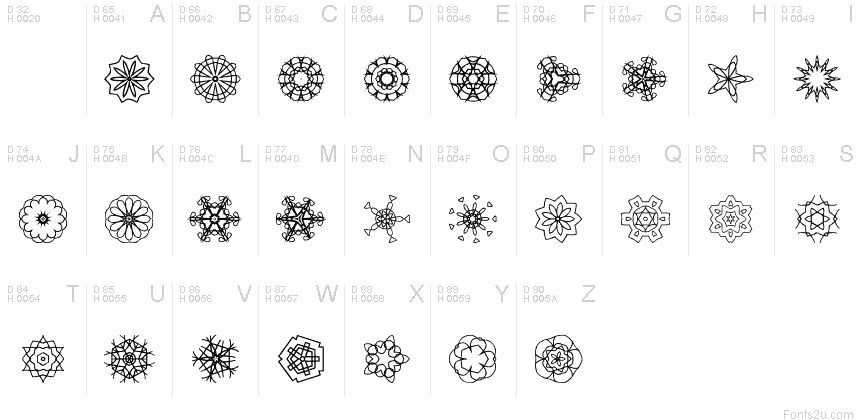
JI Kaleidoscope Bats
JI Kaleidoscope Bats font by Jeri Ingalls is a free decorative dingbat typeface. Each glyph blooms like a tiny black‑ink mandala: scalloped petals, starbursts, and looping floral wheels that feel hand-drawn yet crisp. Drop one icon in the corner of a page or repeat them to build hypnotic borders, patterned fills, or seals that look intricate without any extra illustration work.
Using JI Kaleidoscope Bats, you can quickly enrich invitations, scrapbooking pages, zines, stickers, coloring sheets, digital planners, and packaging accents. The icons hold up beautifully at both small accent sizes and oversized, poster-scale motifs. For a simple pairing trick, combine this free font’s delicate line art with a clean geometric sans serif so the patterns stay the visual hero.